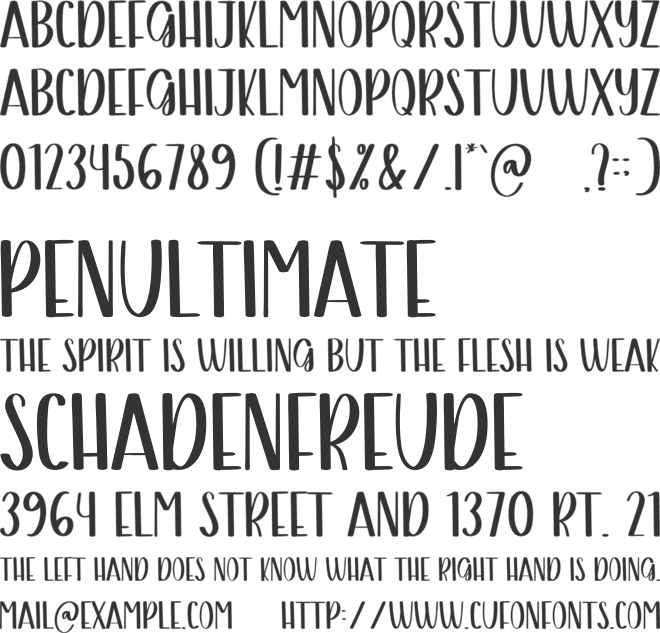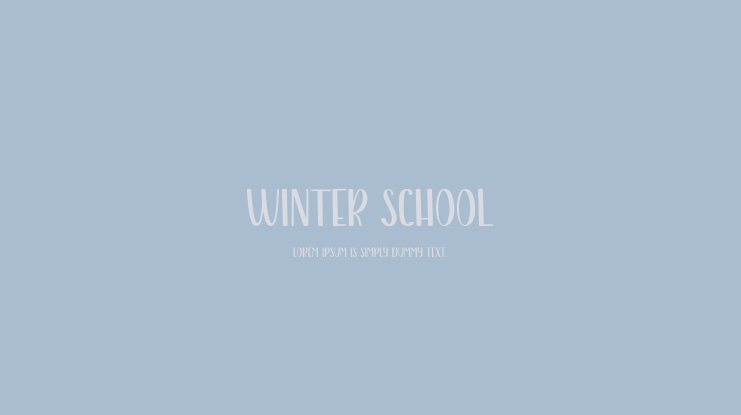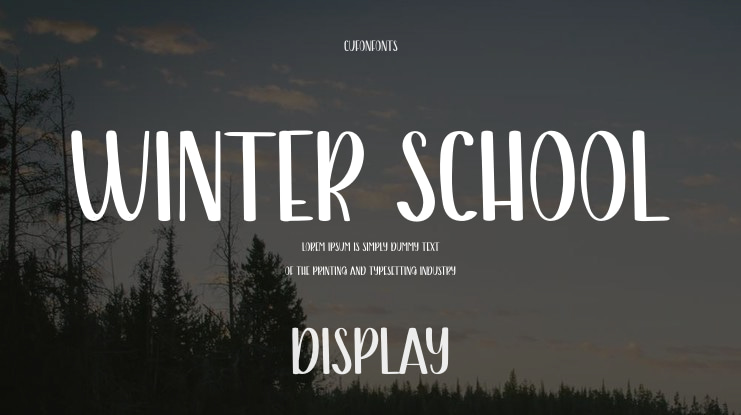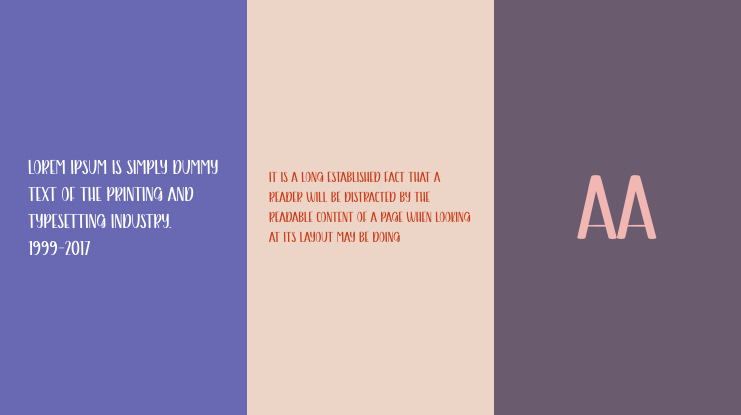
Winter School Font
Our latest collection of stylish letters is perfect for various purposes such as wall displays, wedding invitations, logos for social media posts, advertisements, product packaging, design, labels, photography, watermarks, invitations, stationery, and any project that requires beautiful handwriting.
Winter School font preview